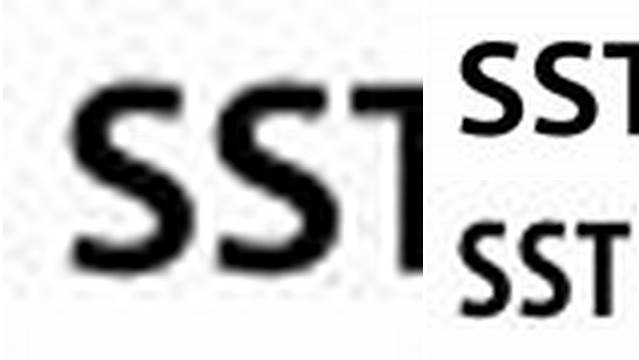
Hey guys! Ever been on the hunt for that perfect font to give your project a unique, bold, and authentic Japanese vibe? Well, look no further! We're diving deep into the world of the SST Japanese Bold Font, a fantastic typeface that’s not only visually striking but also surprisingly accessible. Whether you’re a seasoned designer, a student working on a cool project, or just someone who appreciates beautiful typography, this guide is for you. We’ll explore everything from what makes this font so special to where you can snag it for free and how to use it effectively in your designs. Let's get started!
What is SST Japanese Bold Font?
The SST Japanese Bold Font is a typeface designed to capture the essence of modern Japanese typography. Known for its clean lines and impactful presence, it’s an excellent choice for headlines, posters, branding, and any project where you want to make a statement. This font balances traditional Japanese aesthetics with a contemporary touch, making it versatile for a wide range of applications. The bold weight ensures readability and commands attention, making it a go-to option for designers aiming to convey strength and clarity. It supports a wide range of characters, including kanji, hiragana, and katakana, as well as Latin alphabets, ensuring it can be used in bilingual or multilingual projects. Its versatility extends to various design platforms and software, making it a practical choice for both digital and print media. Whether you’re designing a website, creating marketing materials, or working on a personal project, the SST Japanese Bold Font can add a distinctive and professional touch.
Key Features of SST Japanese Bold Font
When you're choosing a font, understanding its features is super important, right? The SST Japanese Bold Font comes packed with some killer features that make it a standout choice for your projects. First off, its bold weight ensures that your text grabs attention. This makes it perfect for headlines, titles, and any place you need to make a strong visual impact. The font also boasts excellent readability, even at smaller sizes, thanks to its clean and well-defined characters. One of the coolest things about this font is its comprehensive character set. It supports not only Japanese characters like kanji, hiragana, and katakana but also Latin alphabets, making it incredibly versatile for bilingual or multilingual designs. Plus, it’s designed to work seamlessly across various platforms and software, so you won’t have to worry about compatibility issues. Whether you're working on digital designs or print materials, the SST Japanese Bold Font ensures consistency and a professional look every time. Seriously, these features make it a must-have in your font library.
Using SST Japanese Bold Font in Design Projects
So, you've got the SST Japanese Bold Font installed and you're itching to use it, huh? Awesome! This font can really elevate your design projects if you know how to wield it correctly. Start by thinking about the mood and message you want to convey. The bold nature of this font makes it perfect for grabbing attention, so use it in headlines, titles, and call-to-action buttons. It's also fantastic for branding materials where you want to project strength and confidence. When using it in body text, make sure to pair it with a more readable font for the main content. Experiment with different sizes and weights to see what works best for your layout. Remember, balance is key! Don’t overuse the bold style; instead, use it strategically to highlight key elements. Also, consider the cultural context. Since it’s a Japanese-inspired font, use it in projects where that aesthetic makes sense. With a little creativity and careful planning, you can make the SST Japanese Bold Font a standout feature in your designs.
Pairing SST Japanese Bold Font with Other Fonts
One of the secrets to great typography is knowing how to pair fonts effectively. The SST Japanese Bold Font, with its strong and distinct personality, needs to be paired thoughtfully to create a harmonious design. A good rule of thumb is to pair it with a simpler, more neutral font for body text. Think along the lines of a clean sans-serif like Helvetica, Arial, or Open Sans. These fonts provide a nice contrast to the boldness of the SST Japanese Bold Font without competing for attention. Alternatively, you could pair it with a classic serif font like Times New Roman or Garamond for a more traditional look. The key is to ensure that the secondary font is highly readable and doesn’t clash with the overall aesthetic. When choosing a pairing font, consider the visual hierarchy. The SST Japanese Bold Font should be used for headlines and titles, while the secondary font handles the body text. This creates a clear distinction and guides the reader through the content. Experiment with different combinations to find what works best for your project, but always prioritize readability and visual balance.
SST Japanese Bold Font for Logos and Branding
If you're looking to make a bold statement with your brand, the SST Japanese Bold Font could be your secret weapon. This font is perfect for logos and branding materials that need to convey strength, modernity, and a touch of Japanese flair. When using it for a logo, consider how the font’s clean lines and impactful presence can represent your brand’s identity. It works particularly well for tech companies, creative agencies, or businesses with a global outlook. To make the most of it, use the font in a unique and memorable way. Experiment with different layouts, colors, and graphic elements to create a logo that stands out. In your broader branding materials, use the font consistently across your website, business cards, and marketing collateral to reinforce brand recognition. However, be mindful of your target audience. If your brand is aimed at a very traditional demographic, this font might not be the best fit. But if you’re targeting a younger, more modern audience, the SST Japanese Bold Font can give your brand a cutting-edge and stylish appeal. So go ahead, give it a try and see how it transforms your brand!
Using SST Japanese Bold Font in Web Design
Web design is all about making a visual impact, and the SST Japanese Bold Font can be a fantastic tool to achieve just that. This font can add a unique touch to your website, making it stand out from the crowd. When using it in web design, think about where it will have the most impact. Headlines and titles are a great place to start. The bold nature of the font ensures that your headings grab attention and clearly communicate your message. You can also use it for key call-to-action buttons to make them more prominent. However, be careful not to overuse it. Too much bold text can make your website look cluttered and overwhelming. Instead, use it strategically to highlight important elements. Consider the overall design of your website and choose colors and layouts that complement the font’s aesthetic. Also, make sure the font is readable on different devices and screen sizes. Test it on various browsers and mobile devices to ensure a consistent user experience. With a little bit of planning, the SST Japanese Bold Font can help you create a website that is both visually appealing and highly effective.
SST Japanese Bold Font for Print Materials
Final Thoughts on SST Japanese Bold Font